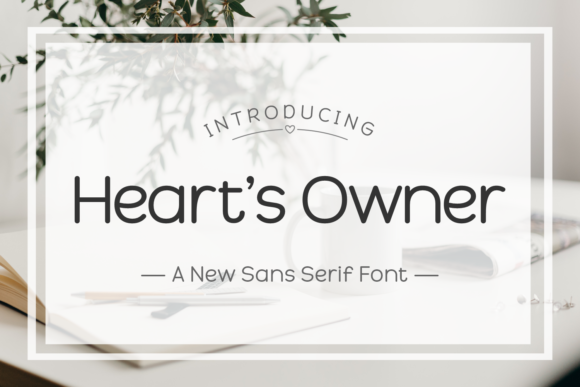
Looking for the perfect sans serif font for your nonfiction book? Look no further than Heart's Owner Font, created by Jasm of 7NTypes. This font is the ideal choice for anyone looking for a minimal and neat design that exudes professionalism and elegance.
With its clean lines and sharp edges, Heart's Owner is a versatile font that can be used for a wide variety of projects. It is particularly well-suited to nonfiction books, where readability and clarity are key. The font is easy on the eyes, making it the perfect choice for readers who want to focus on the content without being distracted by flashy design elements.
But Heart's Owner isn't just functional - it's also incredibly stylish. Its sleek and modern design will give your book a polished and professional look that will help it stand out from the crowd. Whether you're self-publishing or working with a traditional publisher, Heart's Owner is sure to impress.